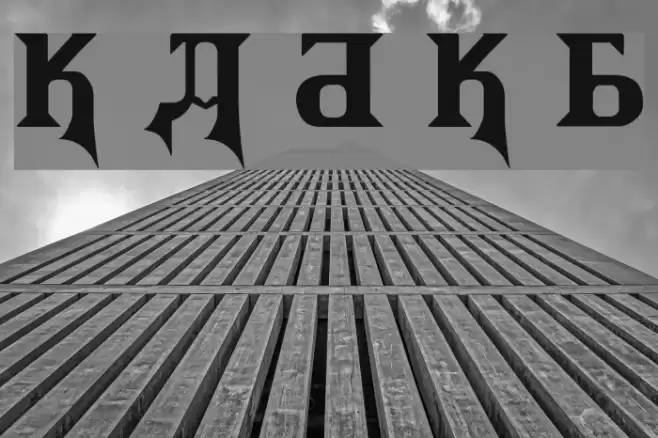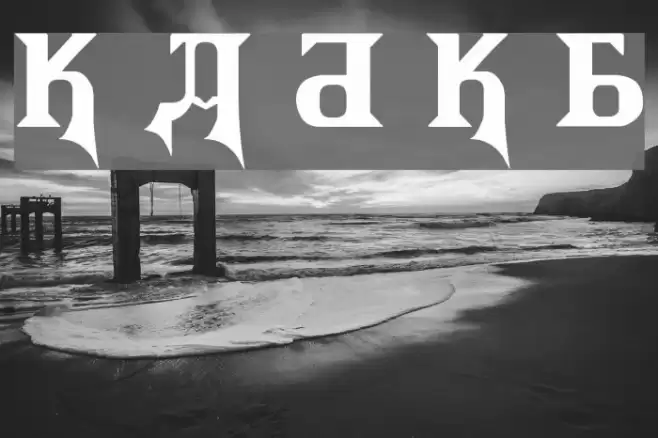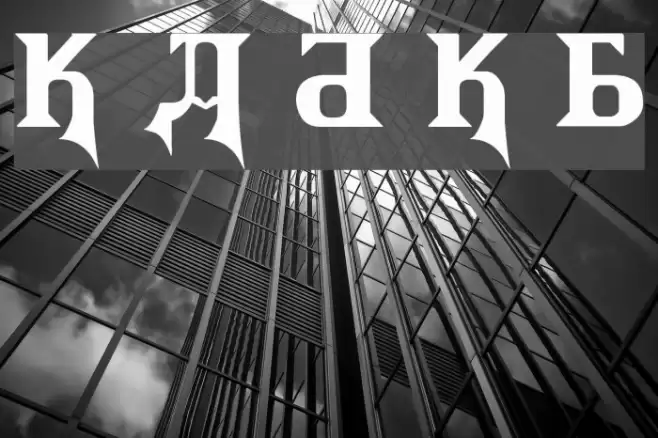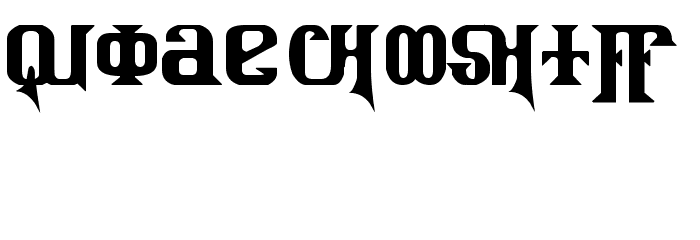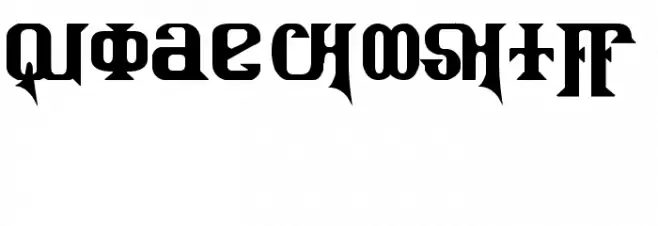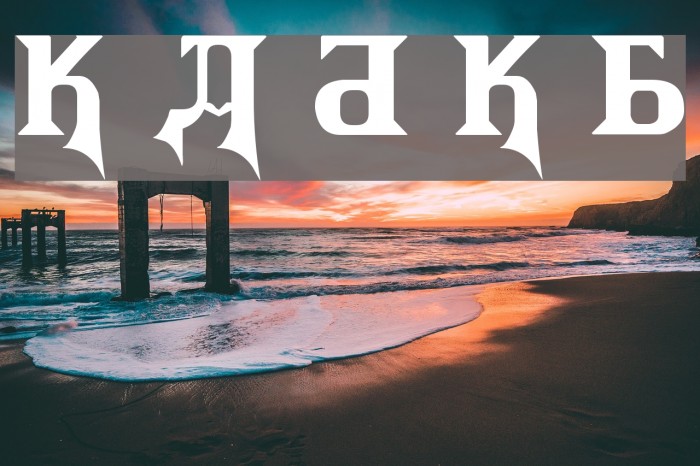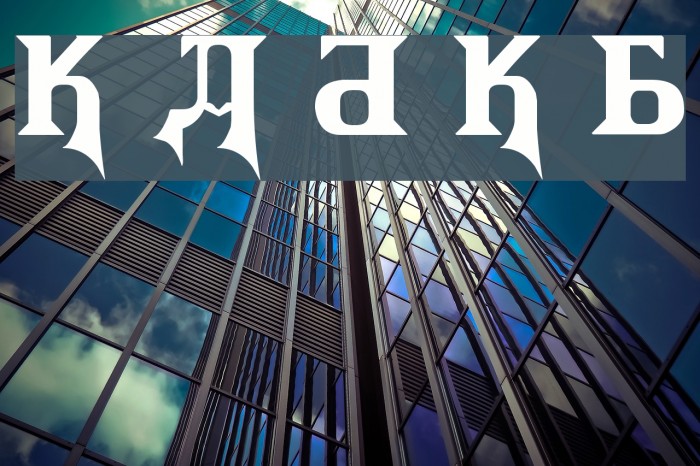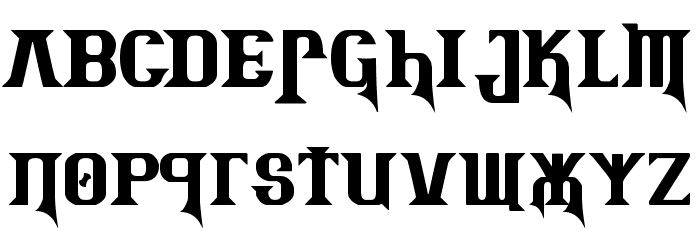
Kremlin Advisor Display Kaps Bold Font
Kremlin Advisor Display Kaps Bold Description
This font features a bold and striking design with sharp, angular serifs and a distinct Gothic influence. The characters are heavily stylized, with pointed edges and dramatic flourishes that give it a medieval and authoritative appearance. The uppercase letters are particularly dominant, with a strong presence that commands attention. The lowercase letters maintain the same stylistic elements, ensuring consistency throughout the typeface. The numbers and special characters are equally bold, making them stand out in any design. This font is ideal for projects that require a historical or dramatic flair.
A bold, Gothic-inspired font with sharp serifs and dramatic flourishes from Uncategorized fonts.
- Proposed Projects: Perfect for historical-themed designs, book covers, posters, and branding that requires a dramatic and authoritative look.
- Overall Style: Vintage